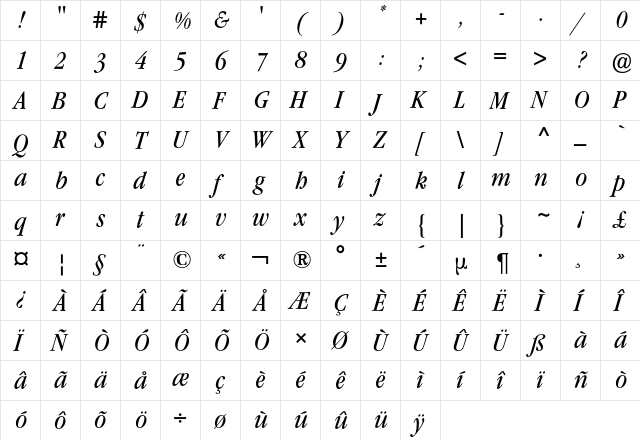
Garamond ITC Condensed BQ Regular
Design Context for Garamond ITC Condensed BQ Typeface
Garamond ITC Condensed BQ offers clean, dependable letterforms without strong stylistic allegiance, making it a practical choice for designers who need flexibility. The condensed width makes it efficient for tight spaces without sacrificing legibility.